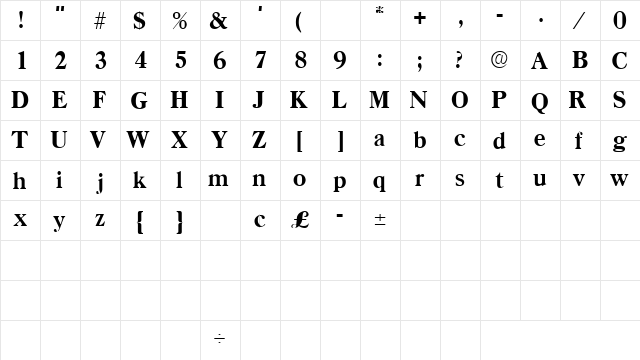
DendroSSK Regular
DendroSSK takes a measured approach to typography — its balanced proportions and neutral character make it a reliable workhorse for both digital and print work.